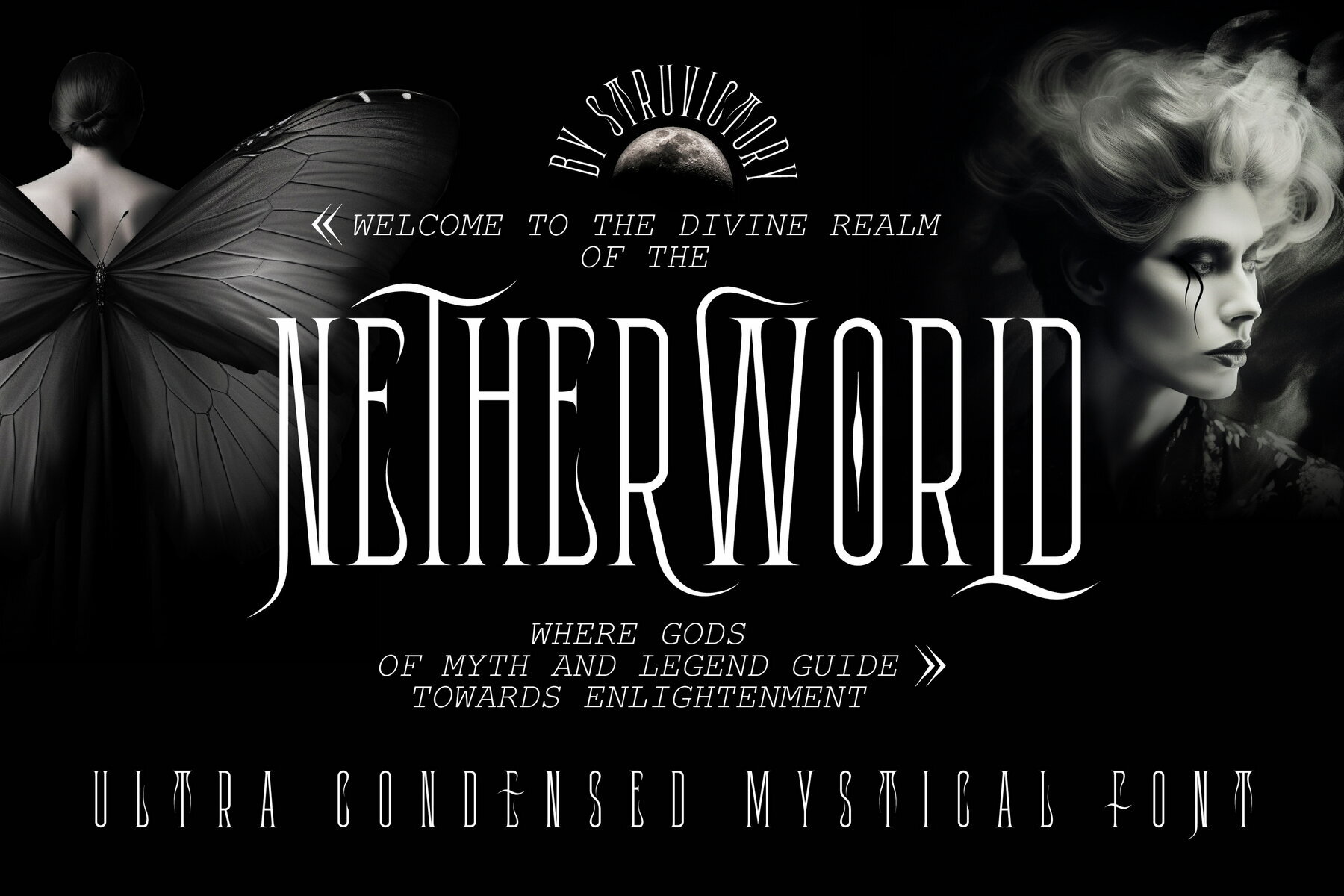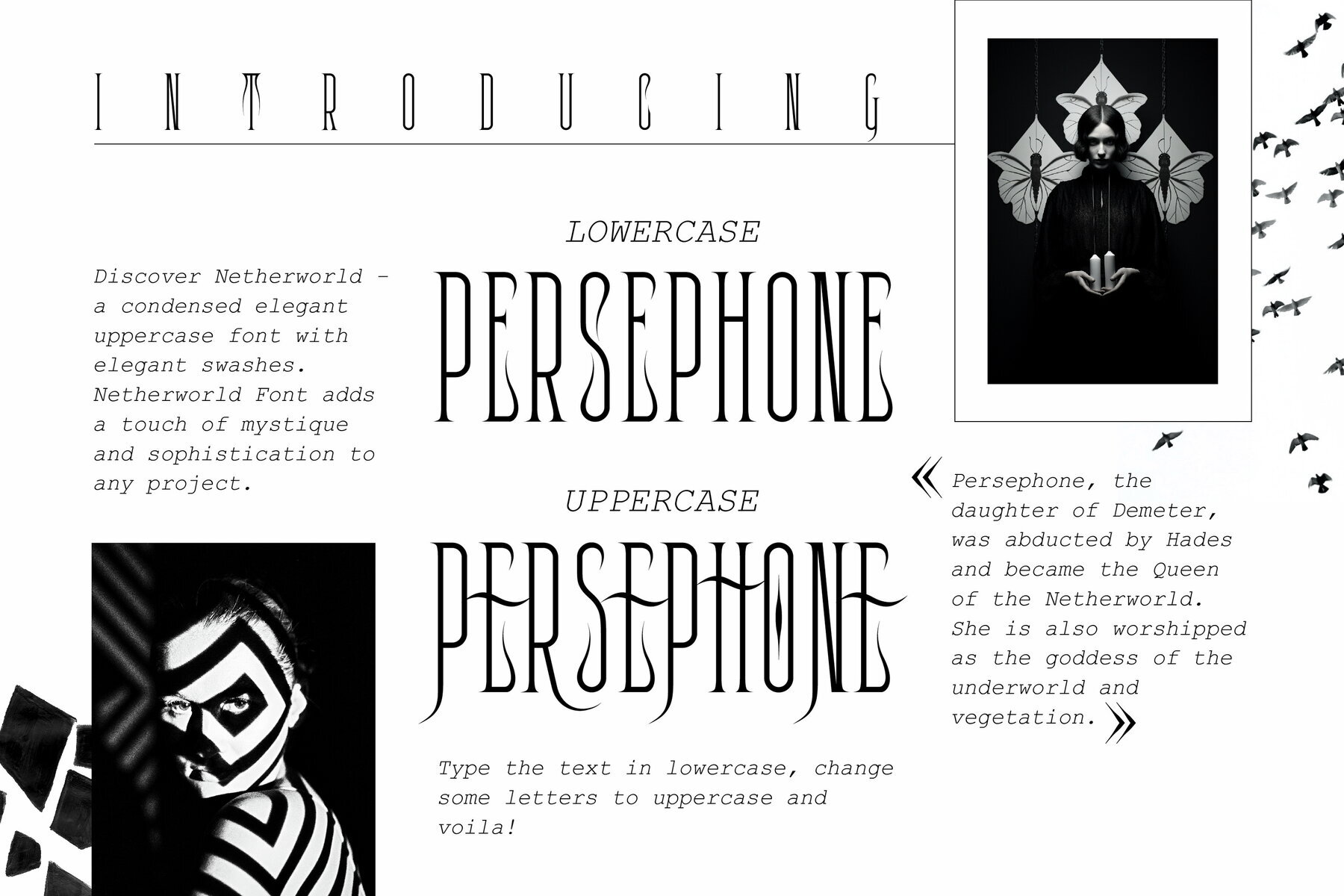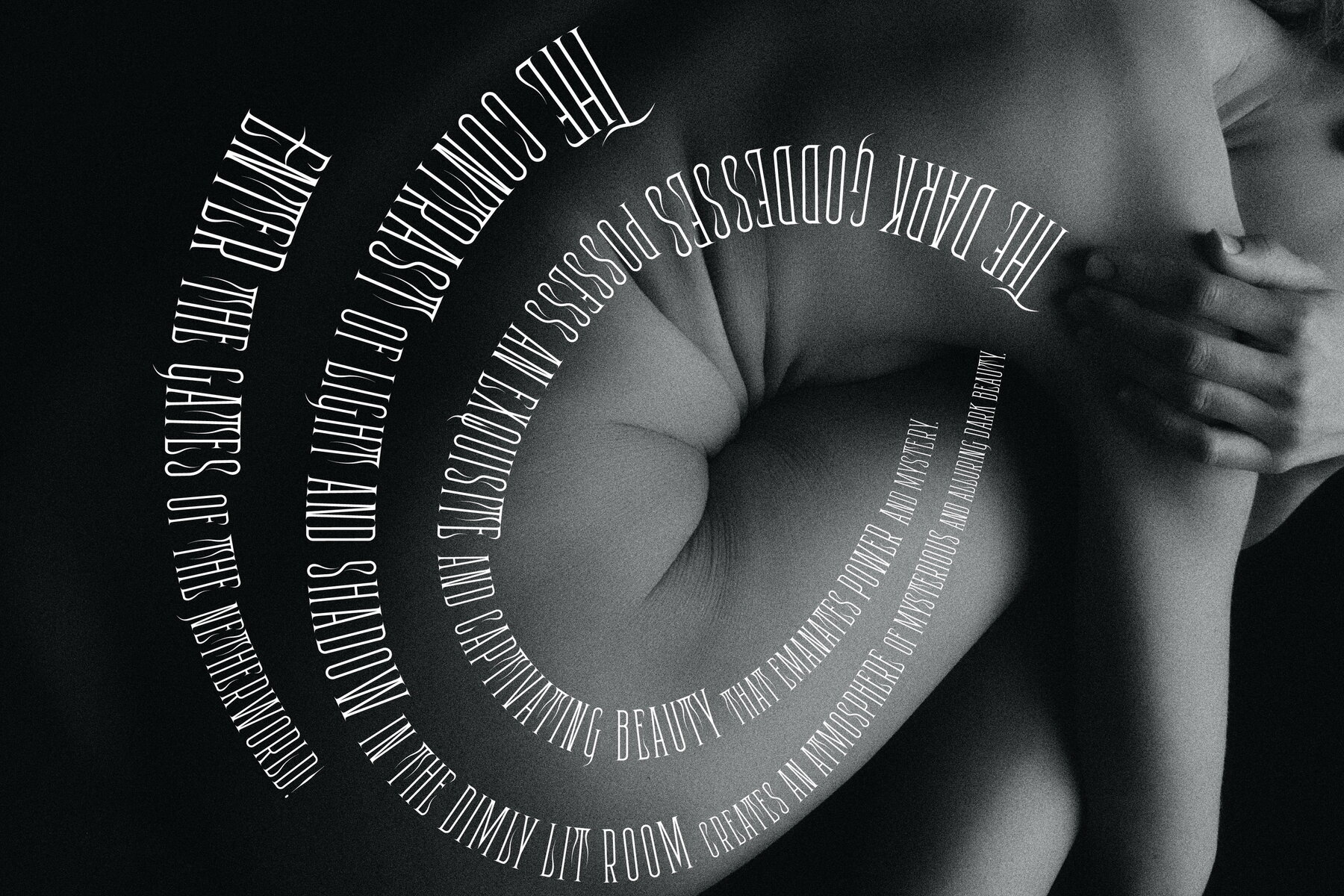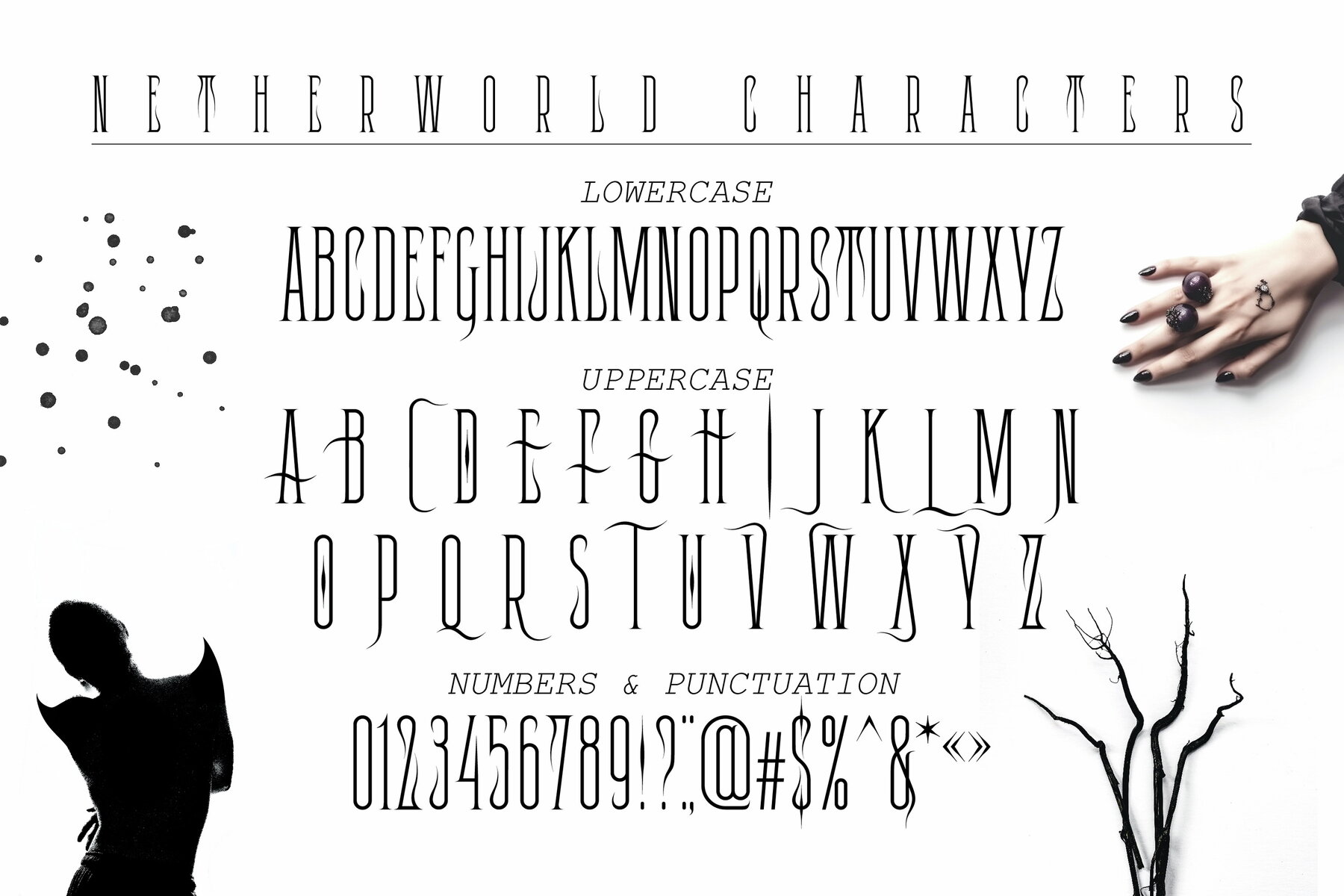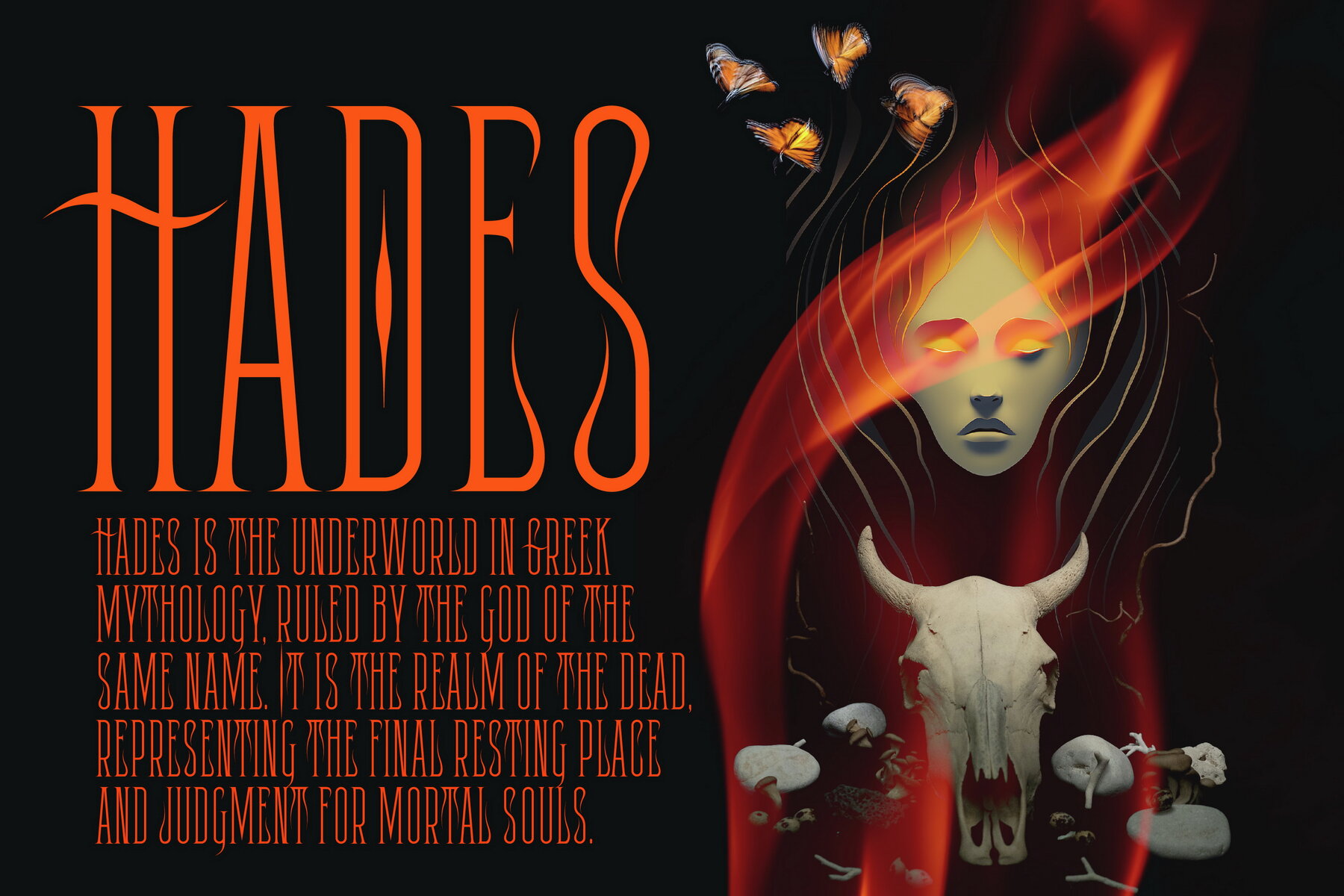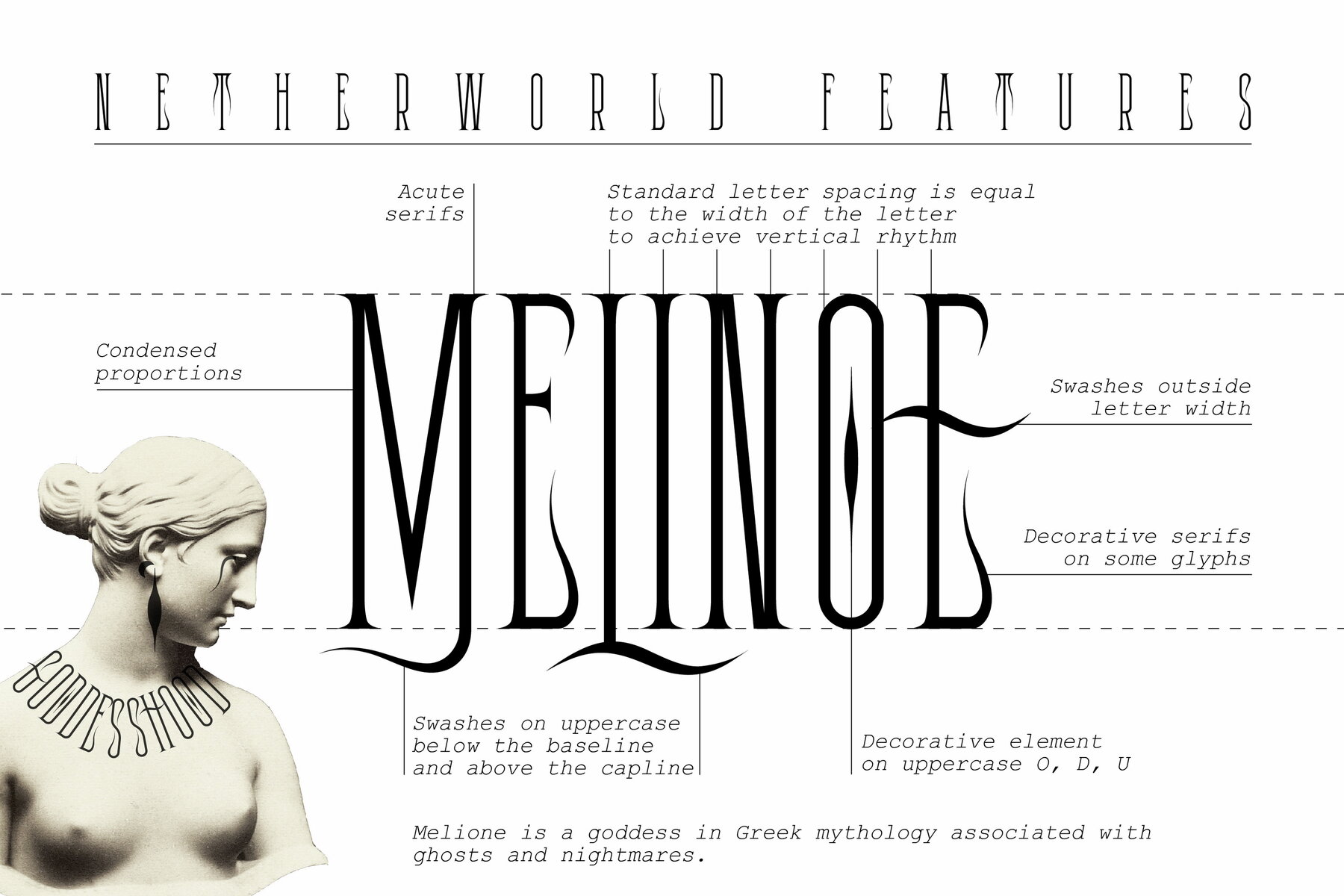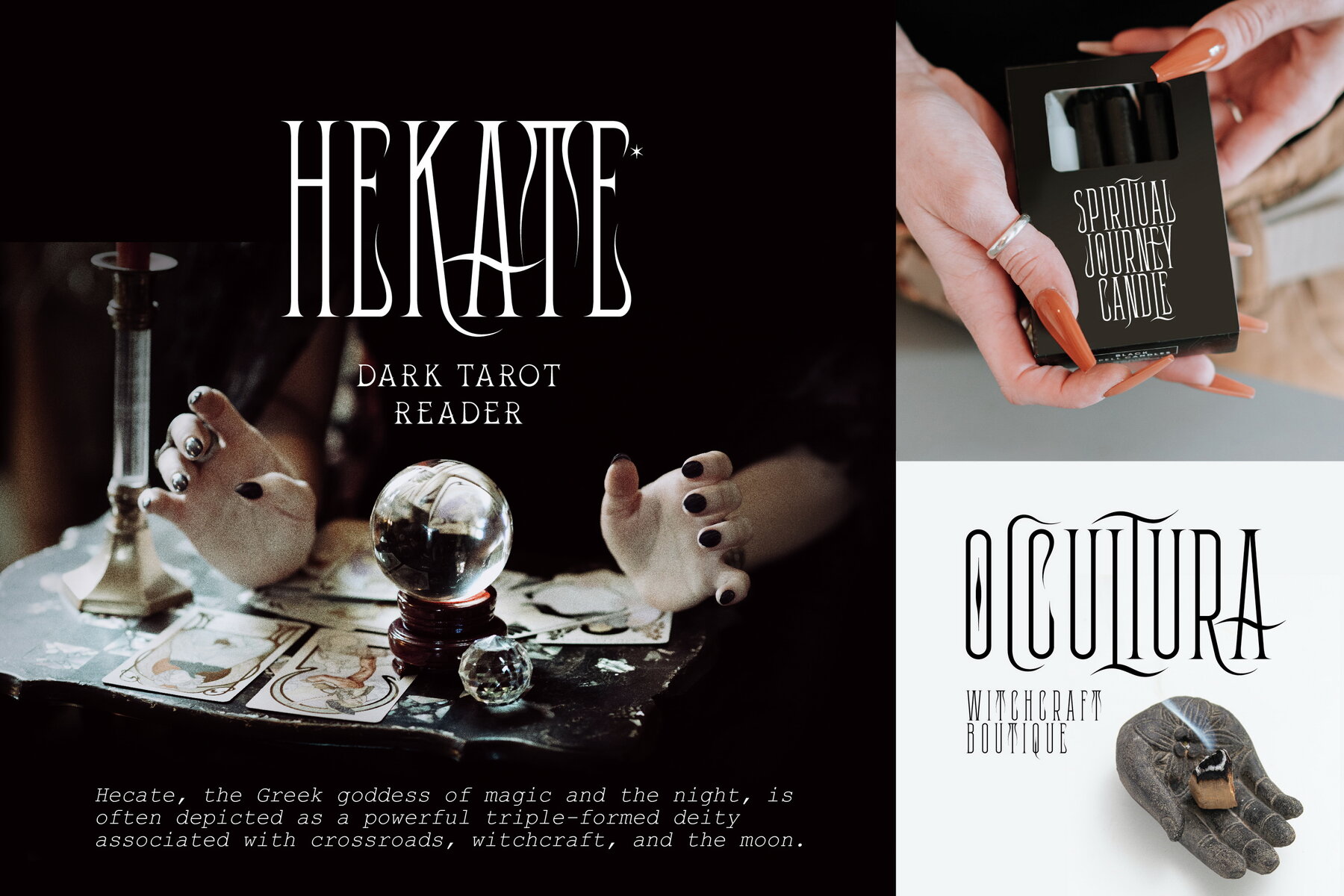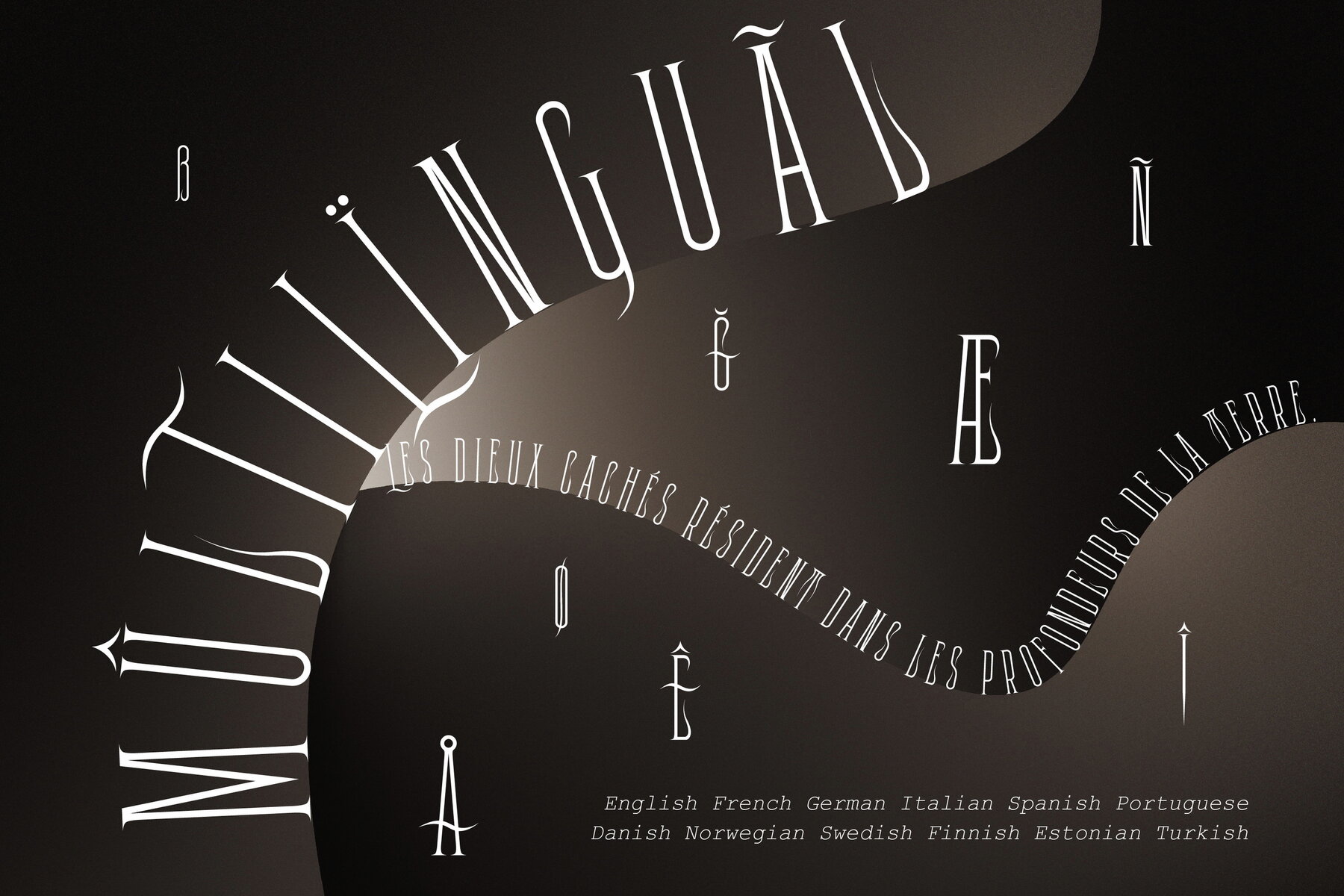
Netherworld Font
Netherworld Condensed
Discover Netherworld, a new condensed font with mystical serifs and swashes, perfect for all your dark-themed designs. With its elegant and enigmatic curves, this font brings an air of mystery and intrigue to your projects. Whether you're designing candle labels, album covers, or delving into the realms of the occult, this font will captivate your audience and transport them to a world of enchantment. Its unique style and intricate detailing make it ideal for witchcraft stores, tarot card designs, and other mystical endeavors.